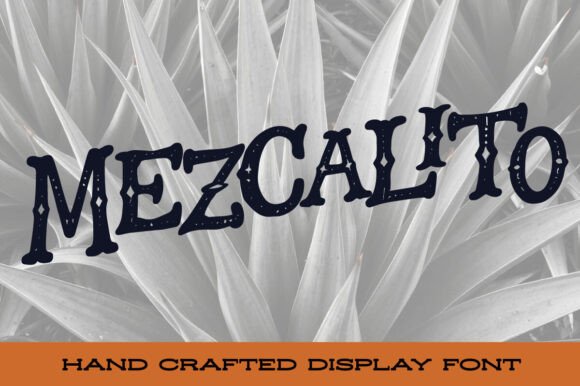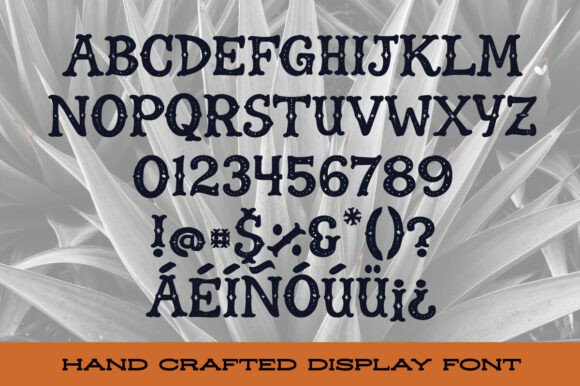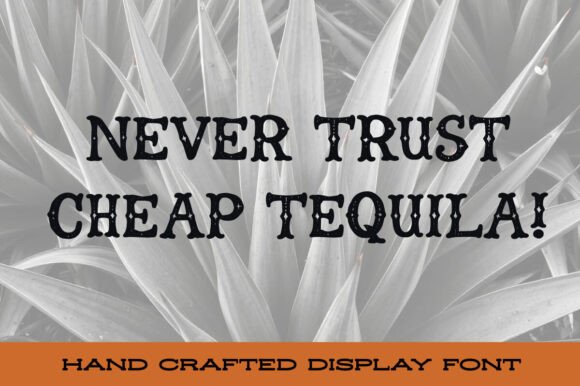
Mezcalito Font: A Bold & Rustic Display Font for Creative Branding
About the Mezcalito Font
Let us introduce you to Mezcalito Font, where timeless design meets modern craftsmanship. Mezcalito is a bold, hand-drawn font with rough, organic edges, inspired by the rustic charm of mezcal bottles, old cantina signs, and traditional Mexican lettering. The characters have an imperfect, slightly wobbly structure, giving them a warm and handcrafted feel—like they were painted with a weathered brush on a wooden tavern sign.
The strokes are thick and slightly uneven, with subtle ink bleeds and a distressed texture that mimics aged lettering. Some letters might feature playful, exaggerated serifs or swashes, reflecting the lively and artistic essence of Mexican design.
The vibe of Mezcalito is bold, festive, and full of personality—perfect for branding, menus, posters, or anything that needs a rugged yet inviting look. It pairs well with vintage illustrations, warm earthy colors, and a hint of fiery spice.
Mezcalito Font Usage Examples
Mezcalito Font Example